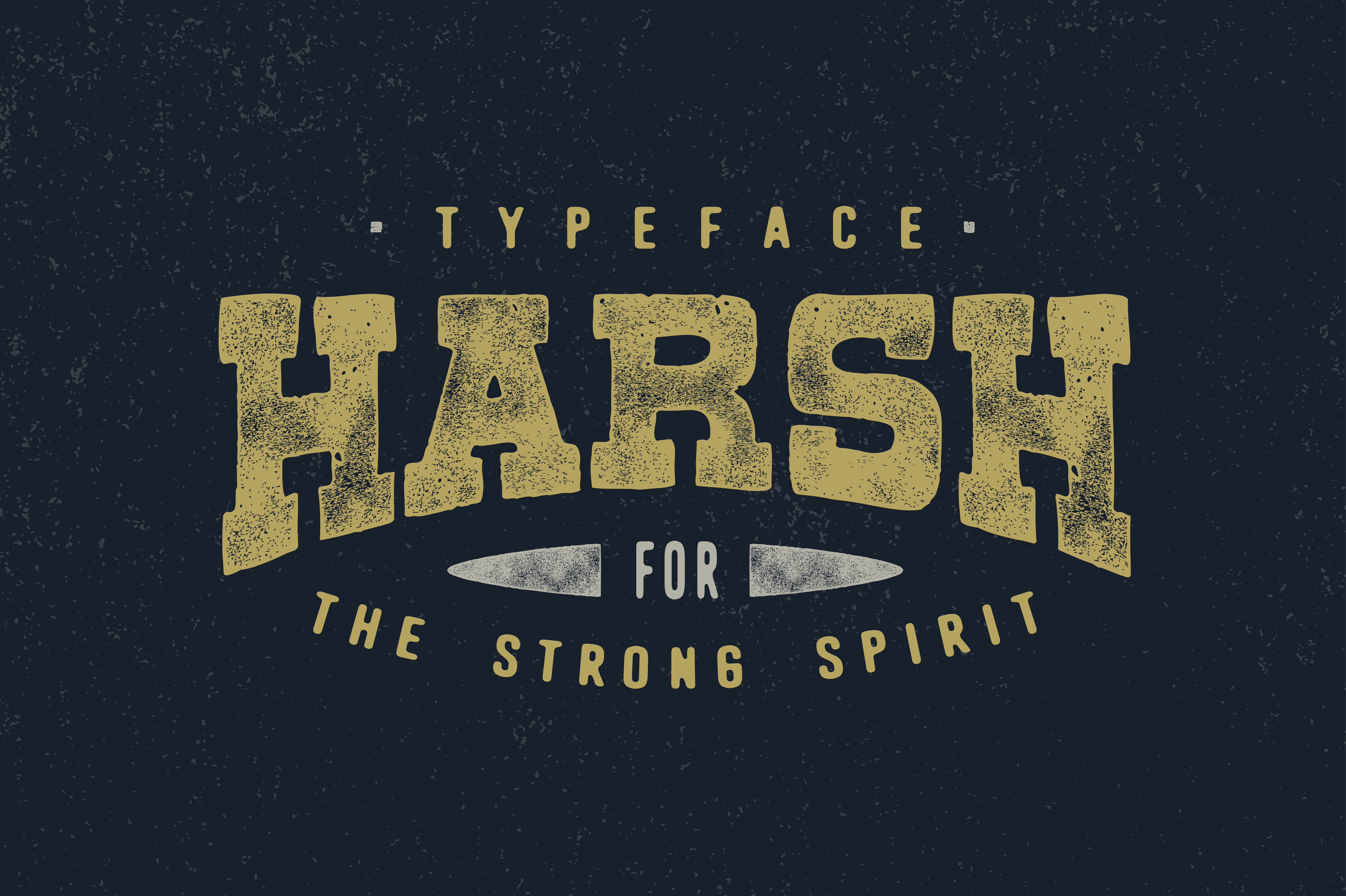
Harsh Typeface
Introducing Harsh Font. Typeface with bold character. Each glyphs is very well suited to make interesting quote, design. Harsh font best uses for logo, t-shirt/apparel, poster, movie, insignia, packaging, headline etc. All the designs you have seen on previews come as a free bonuses. They are in .ai format with editable text and colors.